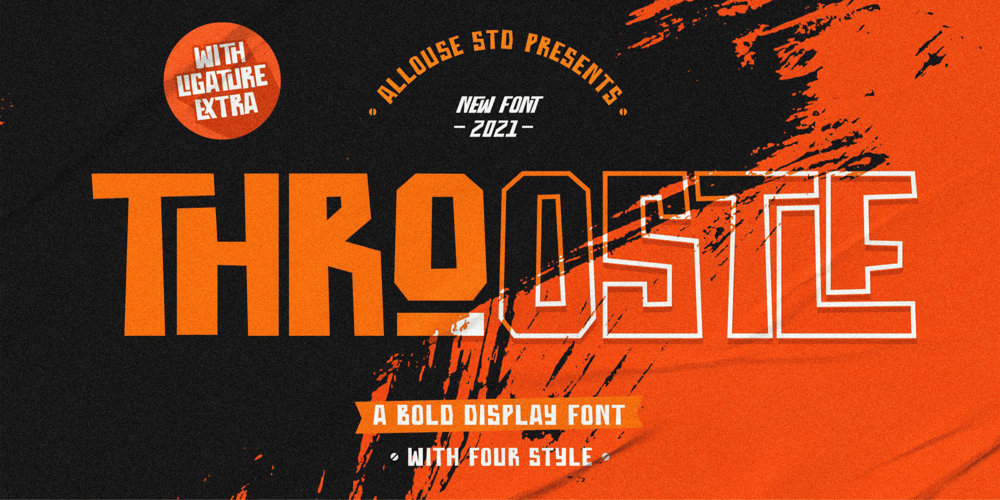
Throostle
Throostle font
Throostle Font Family was designed by Fachrizal Yusuf and published by Allouse Studio. Throostle contains 4 styles and family package options. Proudly Presenting, Throostle a Bold Display Font Family.Throostle is perfect for any titles, logo, product packaging, branding project, megazine, social media, wedding, or just used to express words above the background.Throostle also come with Multi-Lingual Support.Enjoy the font, feel free to comment or feedback, send me PM or email. Thank You!